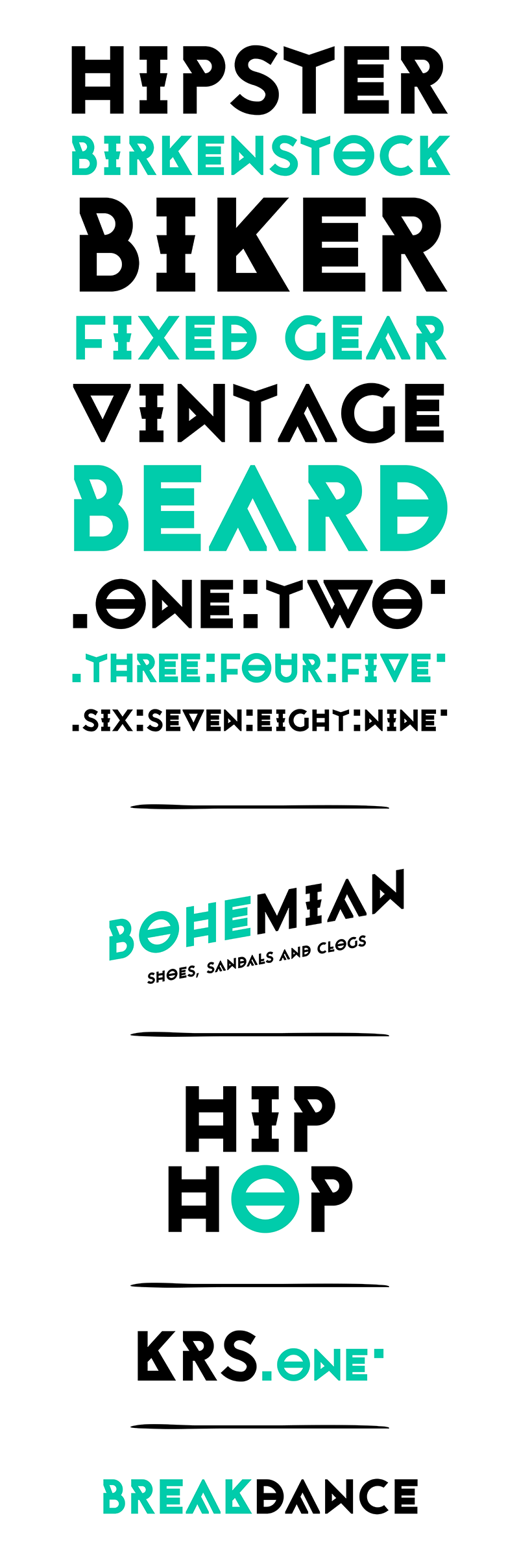
Monohipster is a DIsplay Decorative Font designed for Monocromo website. Designed after the aesthetic hipster culture of recent years, Monohipster looks at the shirt’s patterns but, at the same time, keeps a personal feel using unconventional shapes. It is a declared Display Font that only has Uppercase letters but comes with a lot of diacritics to obtain different effects, essential punctuation and two kind of numerals: ENG – ITA. Monohipster Family: Monohipster Regular FULL version available here > https://www.monofonts.com/products/monohipster For commercial use, you can purchase the font at: https://www.monofonts.com/products/monohipster For more info on our license: http://www.monofonts.com/license |